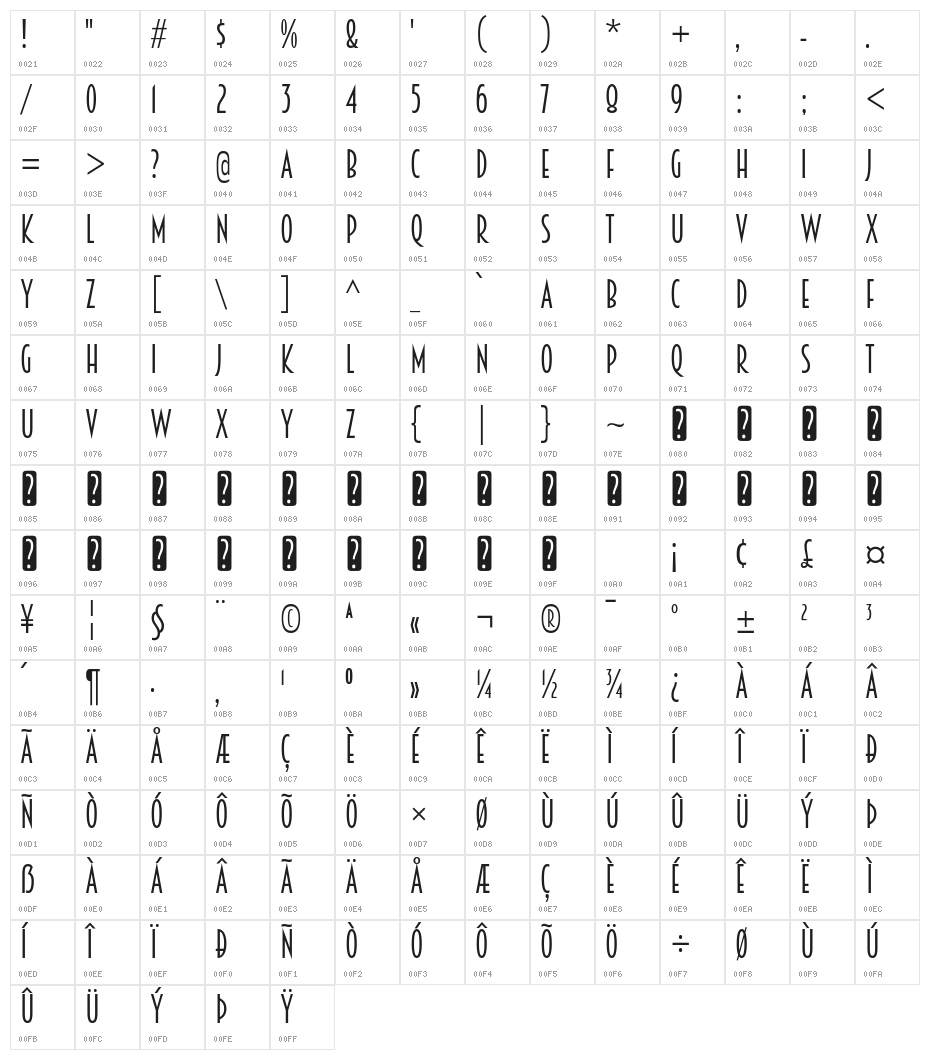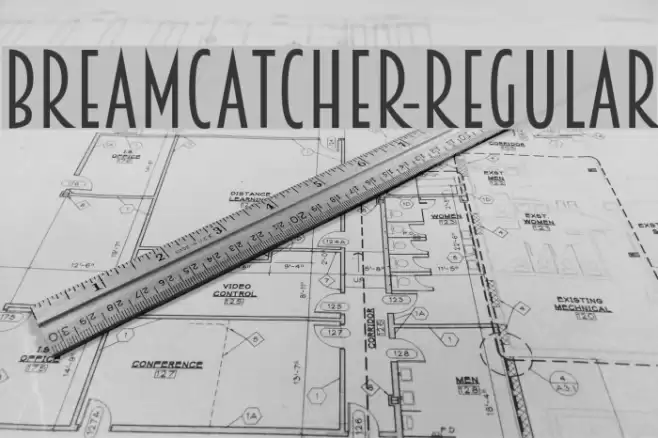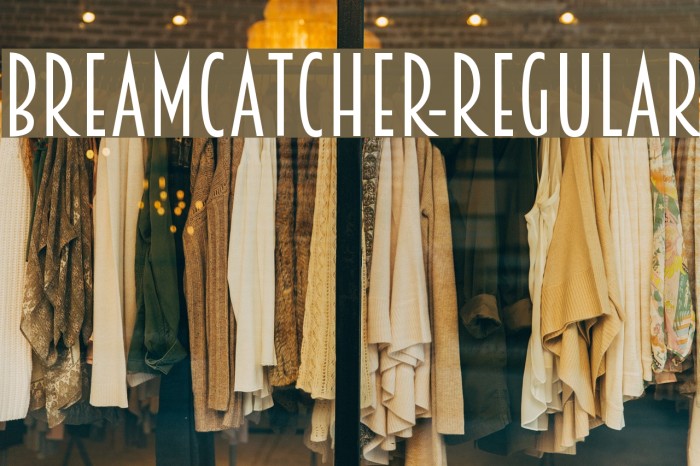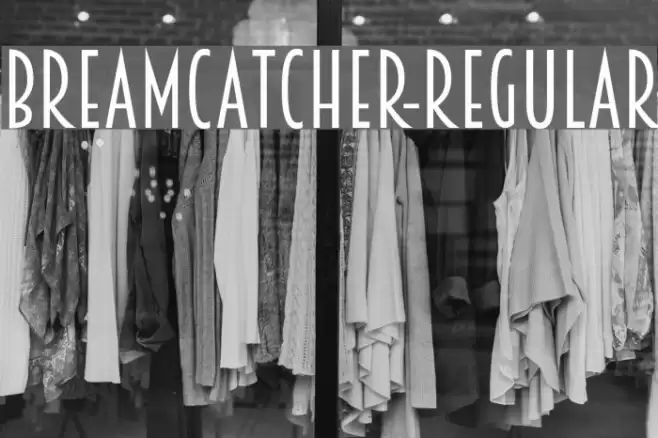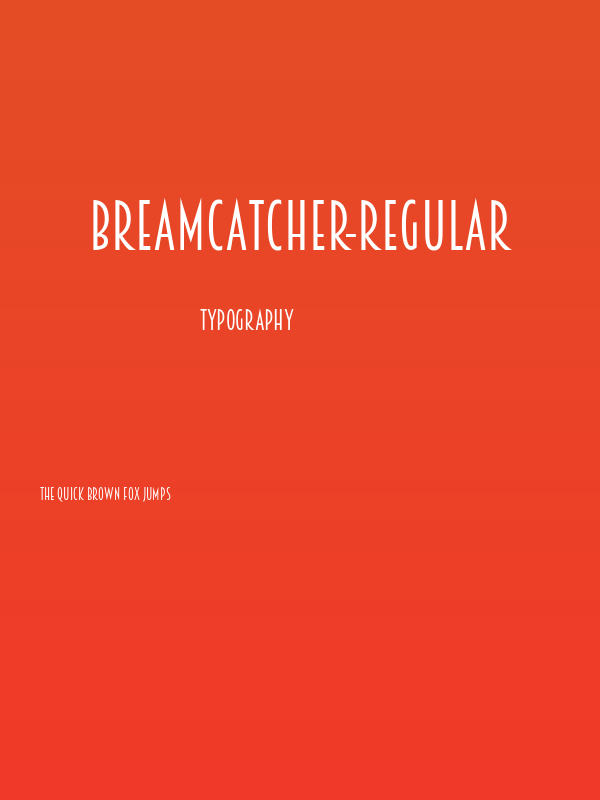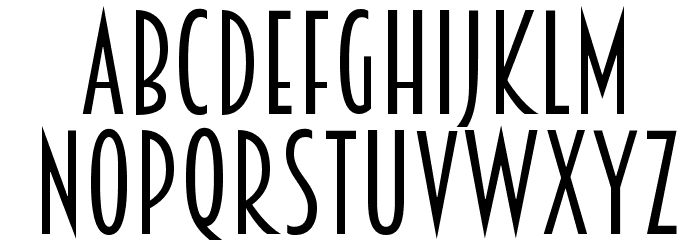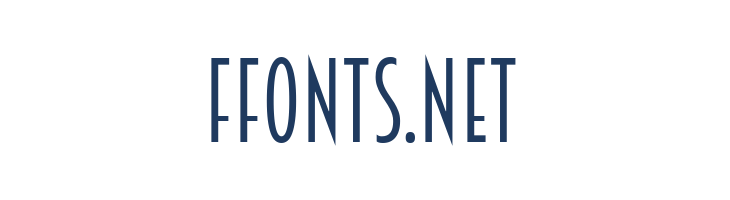
Breamcatcher-Regular Font
Breamcatcher-Regular Description
This font features a tall and narrow design with a modern and elegant appearance. The characters are elongated, giving a sense of height and sophistication. The strokes are consistent in width, providing a uniform look across all characters. The uppercase and lowercase letters maintain a clean and sleek style, while the numerals and special characters complement the overall aesthetic. This font's design is both stylish and functional, making it suitable for a variety of applications where a contemporary and refined look is desired.
| Proposed Projects | Ideal for fashion magazines, luxury branding, modern posters, and elegant invitations. |